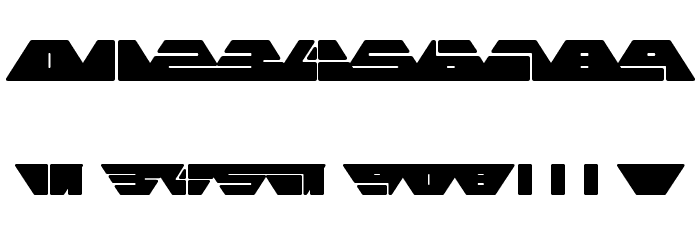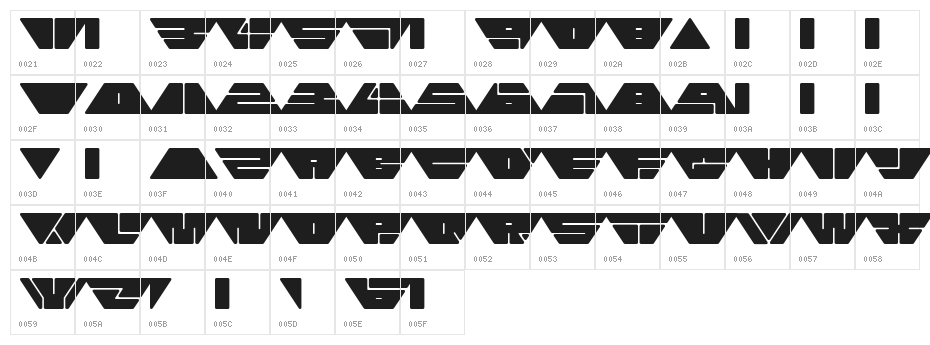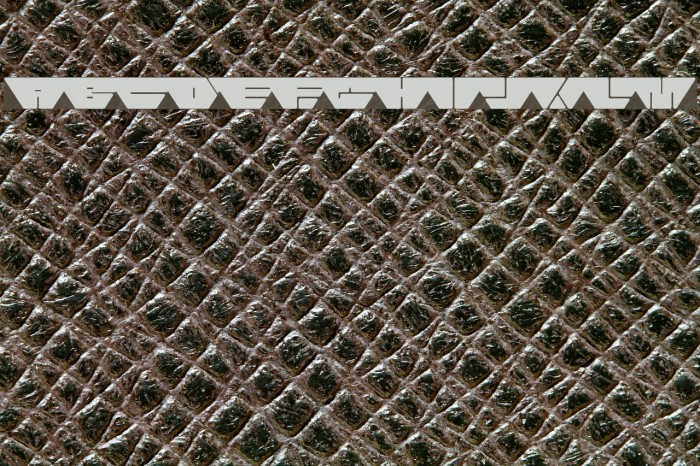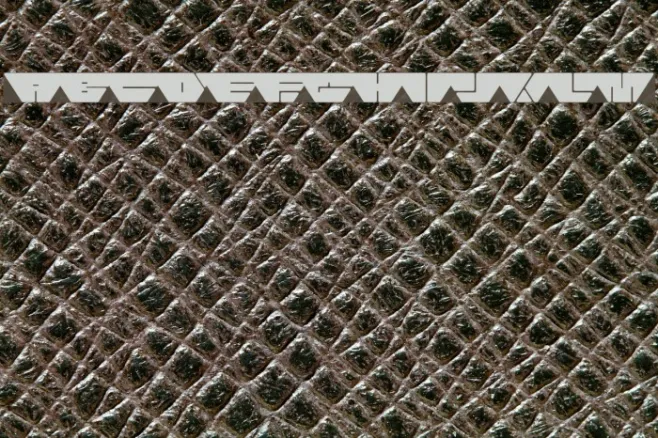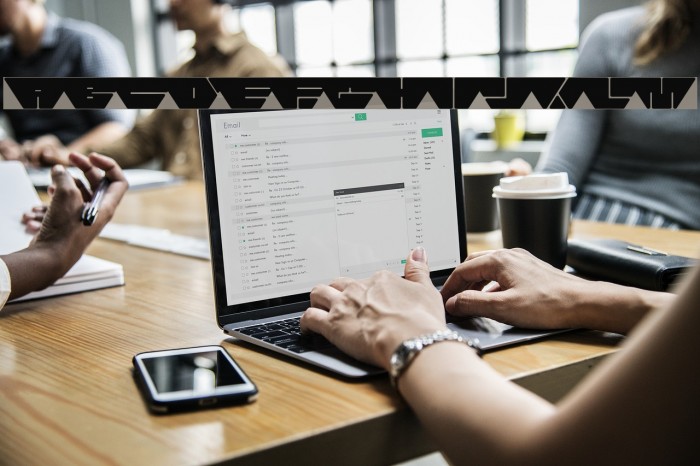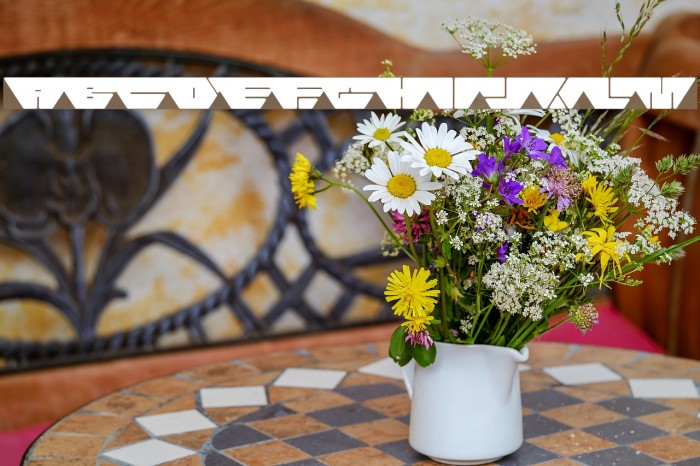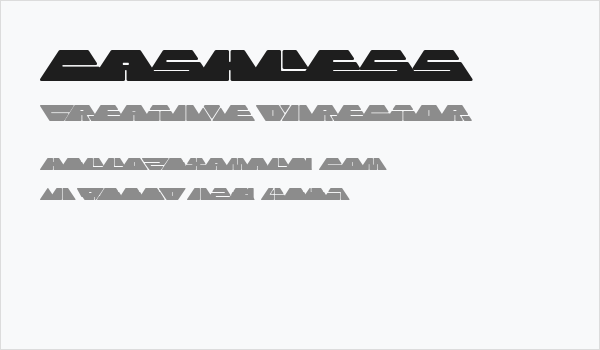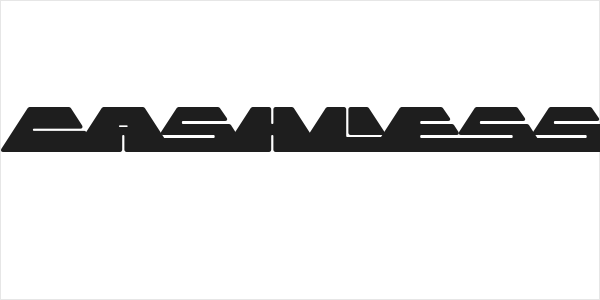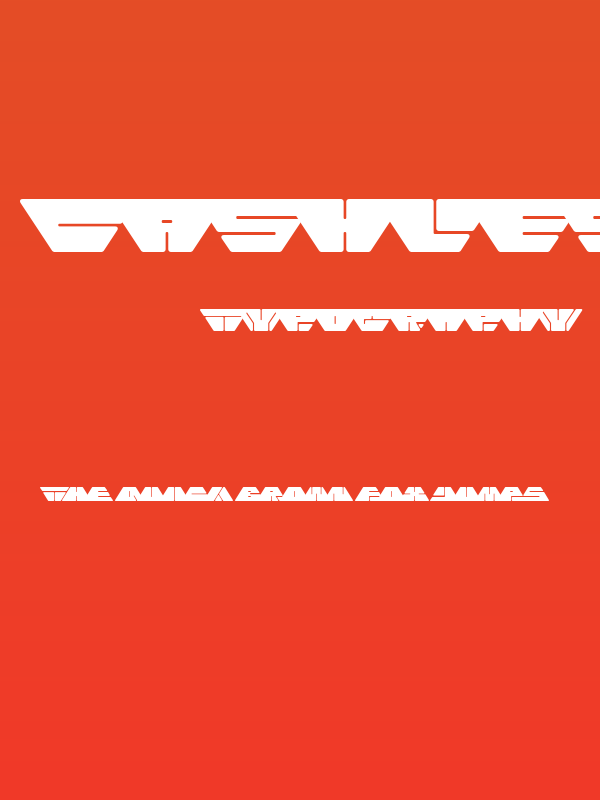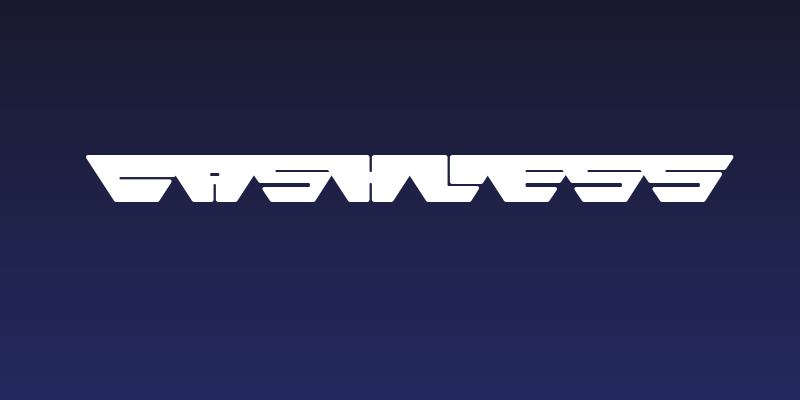
cashless Font
cashless Description
This font features a bold, futuristic design with geometric shapes and sharp angles. The characters are constructed with solid, block-like forms, creating a sense of strength and modernity. The uppercase and lowercase letters maintain a consistent style, with minimal differentiation between them, emphasizing uniformity. Numbers and special characters follow the same design principles, ensuring a cohesive look across all glyphs. The font's unique style makes it stand out, ideal for projects requiring a strong visual impact.
| Overall Style | Futuristic, Modern |
| Proposed Projects | Ideal for sci-fi themed designs, video game titles, tech branding, and futuristic posters. |